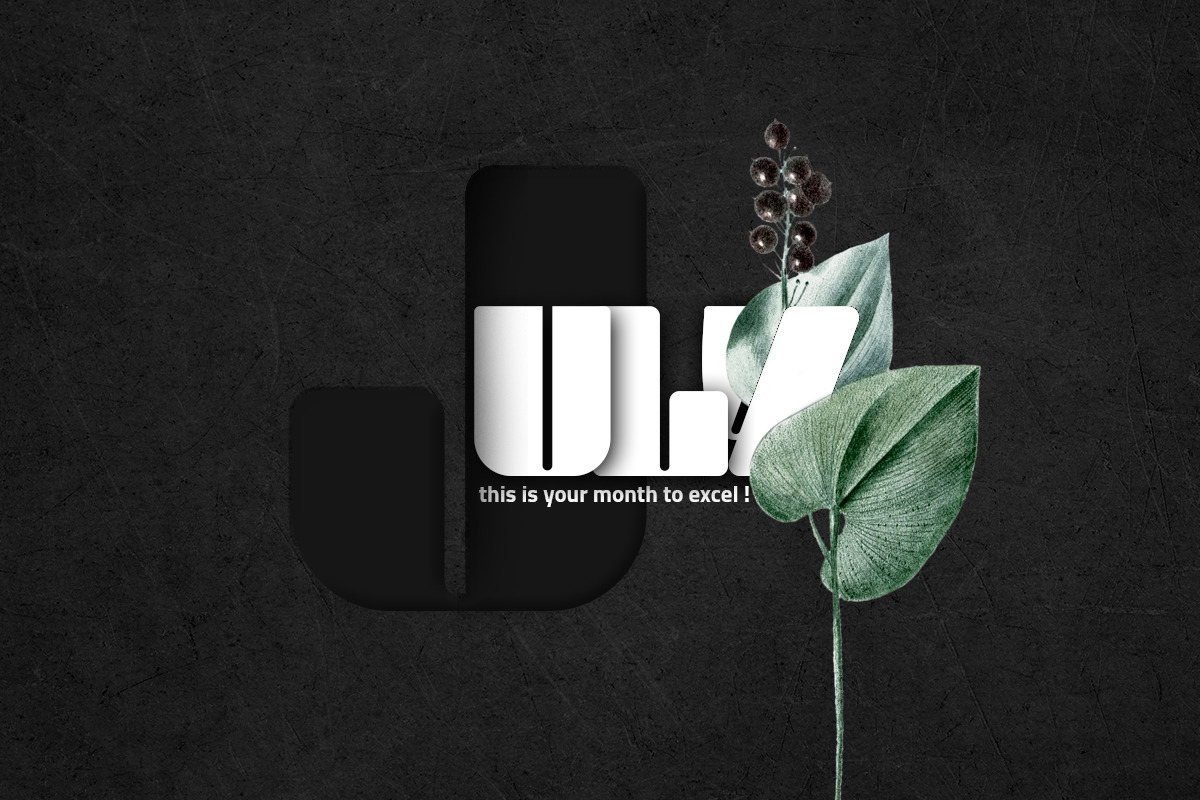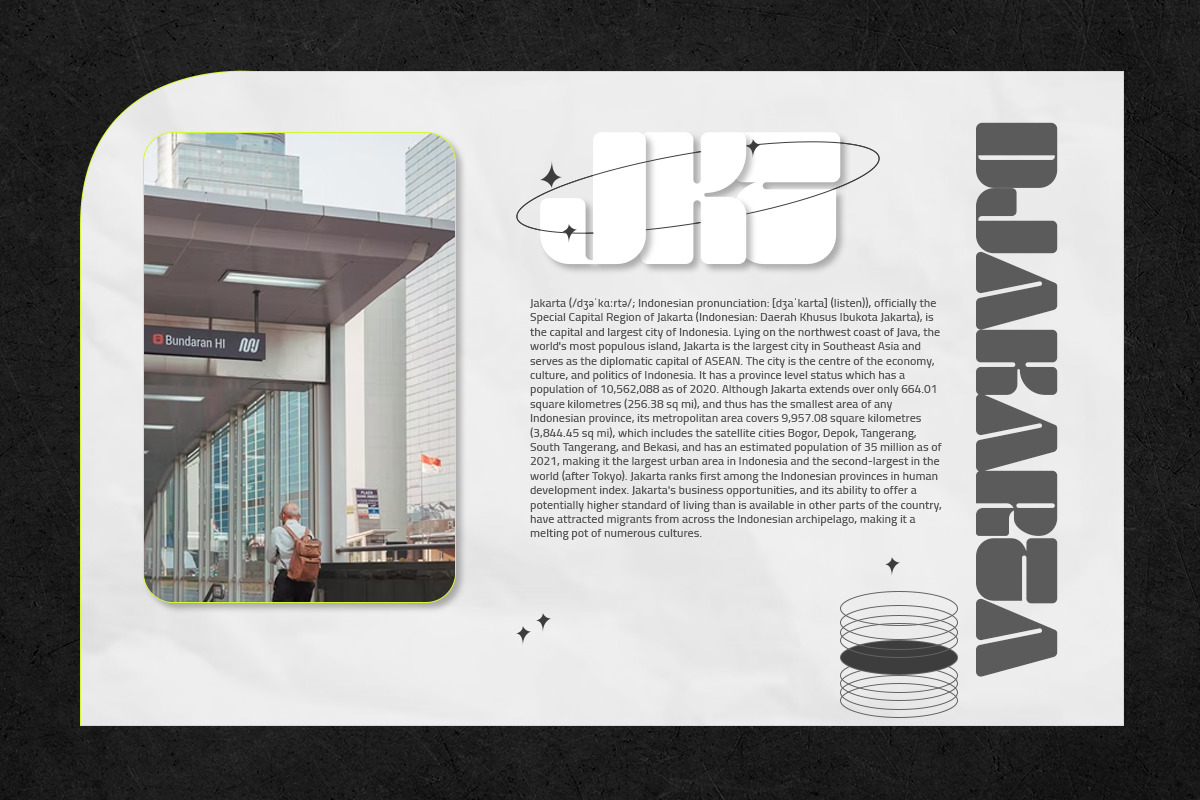
Partita Font
Introducing, Partita. A reverse contrast bold font suitable for display especially. Perfect for your daily project like for headline poster, packaging, social media, branding, or anything about pop and fun design.